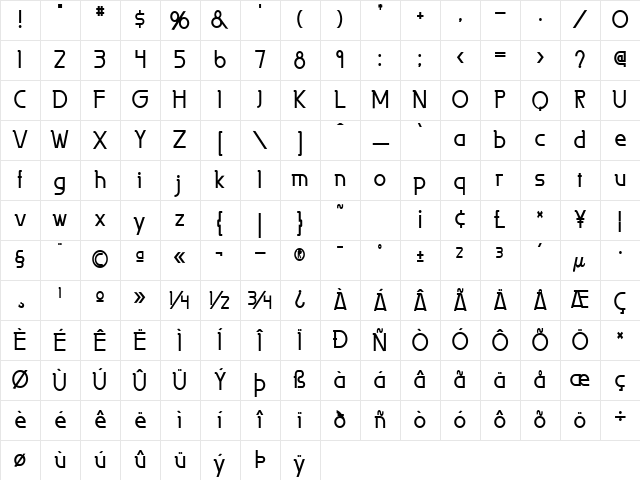
Persia-Condensed Bold
Persia-Condensed Family
Persia-Condensed Bold
Design Context for Persia-Condensed
Persia-Condensed is a composed and adaptable typeface that performs quietly and consistently across a wide range of design contexts. Its bold stroke weight gives it real presence on the page. Its narrow stance lets it pack a punch even in space-constrained designs.